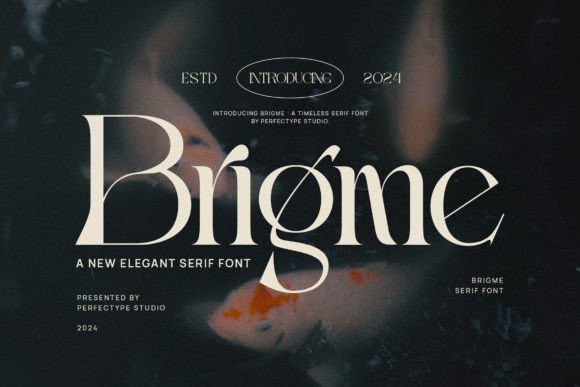
The Elegance of Brigme Font: A Designer’s New Best Friend
This elegant serif typeface has been a game-changer for me, and I’m excited to share my experience with you. Whether you’re a designer, crafter, or creative hobbyist, you’ll love the versatility and classy style of Brigme Font.
- ✅ The perfect blend of traditional and modern styles
- ✨ High level of readability, making it suitable for various design projects
- 💼 Versatile and can be used for branding, logos, wedding designs, social media posts, and more
- 🎨 Beautifully crafted with attention to detail
The Designer Inspiration Behind Brigme Font
Brigme Font was designed with the goal of creating a elegant and versatile typeface that could be used for a wide range of design projects. The designer drew inspiration from classic serif fonts, while incorporating modern elements to create a unique and sophisticated style.